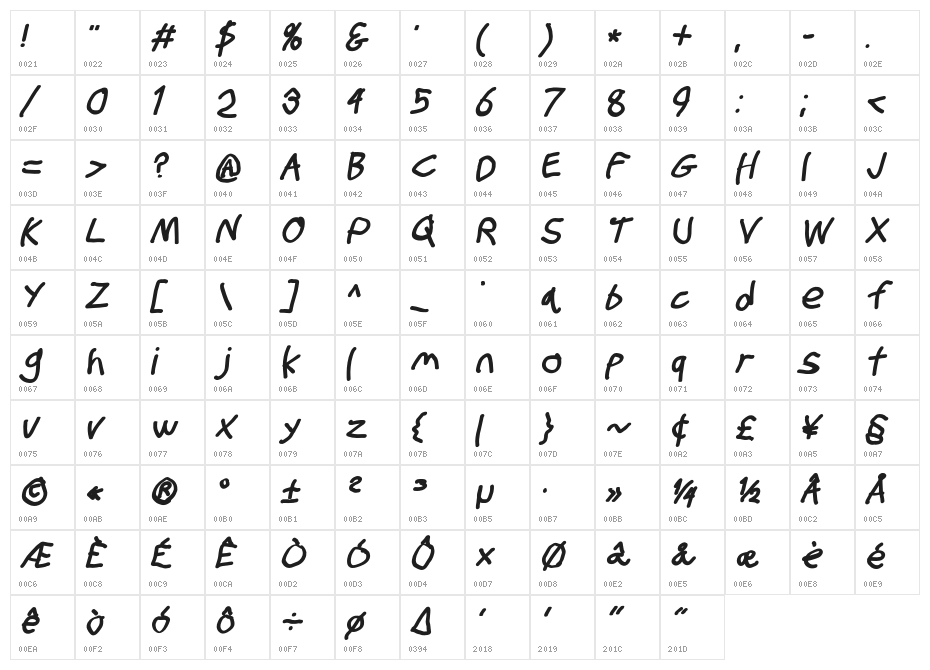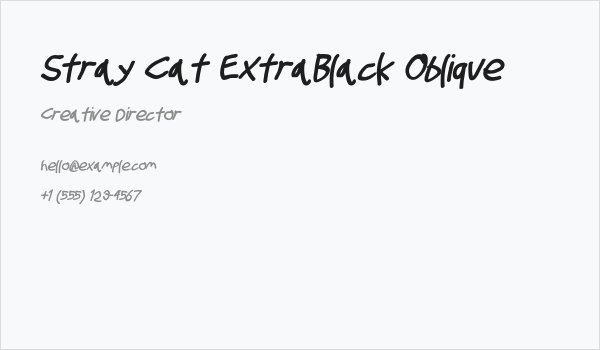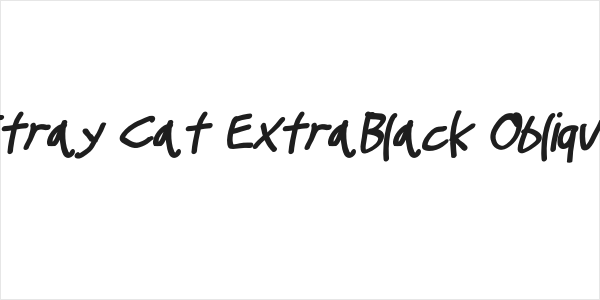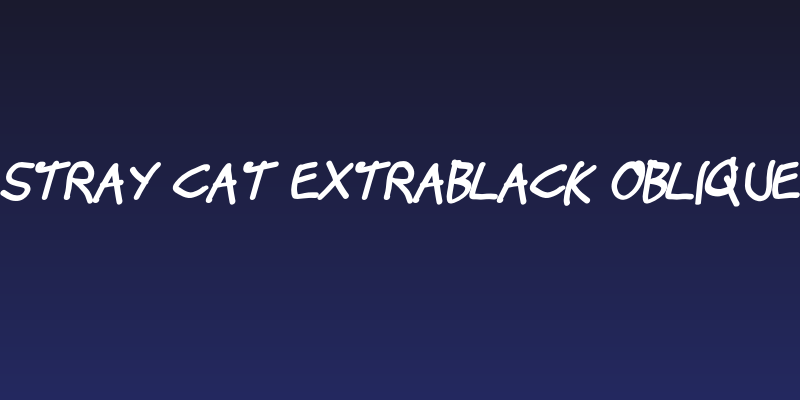
Stray Cat ExtraBlack Oblique Font
Stray Cat ExtraBlack Oblique Description
This font features a bold, handwritten style with a playful and energetic appearance. The characters are slightly slanted, giving an oblique effect that adds to its dynamic feel. The strokes are thick and consistent, providing a strong visual impact. Each letter is uniquely crafted, maintaining a casual and informal tone. The font's design is reminiscent of quick, expressive handwriting, making it ideal for projects that require a personal touch. The numbers and special characters follow the same style, ensuring uniformity across all elements.
| Use Case | Logos, Headlines, Informal Text |
| Proposed Projects | Ideal for greeting cards, playful branding, children's books, and creative posters. |